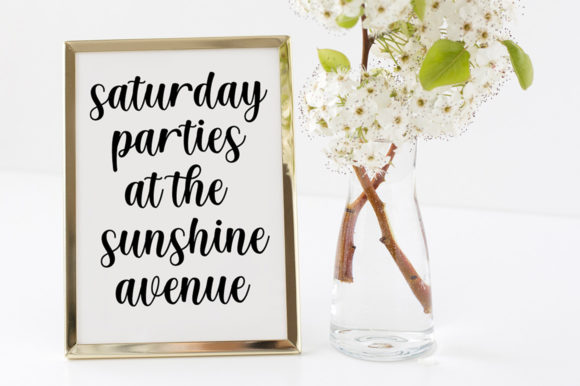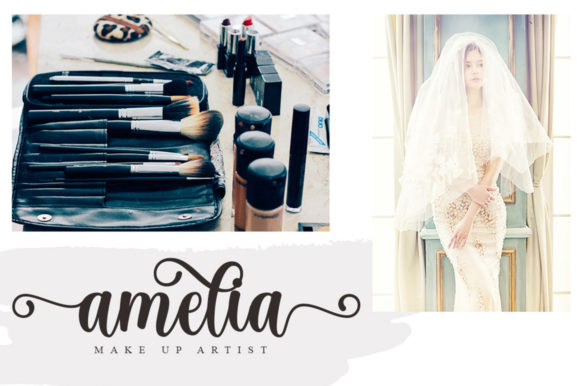
Miabella Font
db-ku.com - Script & Handwritten -- Miabella is a one-of-a-kind script featuring classic touches and being very readable at glance. It works great especially on logotype, apparel, invitation, branding, packaging, advertising and various other creations. This font is PUA encoded which means you can access all of the amazing glyphs and ligatures with ease!